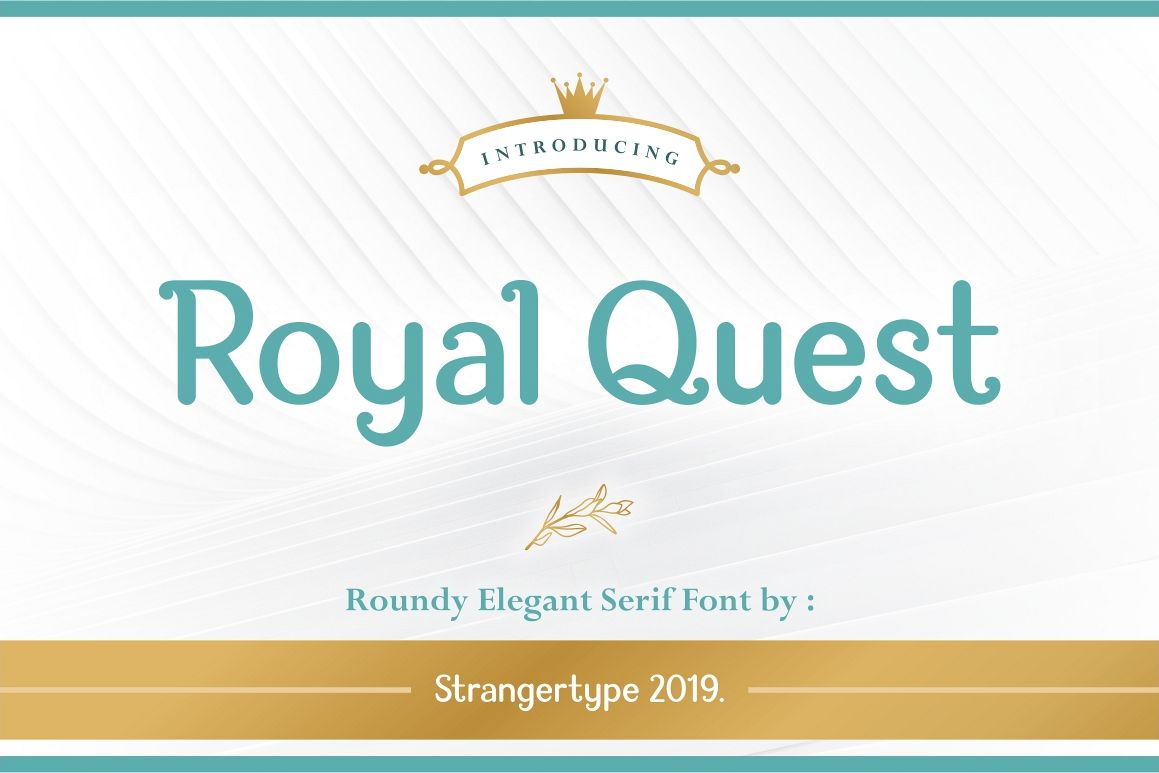
Royal Quest - Logo Font
Royal Quest
Royal Quest is roundy serif font with playfull, luxury and elegant feel. The shape of font inspired by the beauty pillar of roman architecture building. Main font file comes with the usual characters (A-Z, a-z, 0-9, ligatures and tons of punctuation), as well asover 400 accented characters to support most Latin-based languages for your design project. It’s suitable for logos, labels, quotes, books, fashion designs, and more!